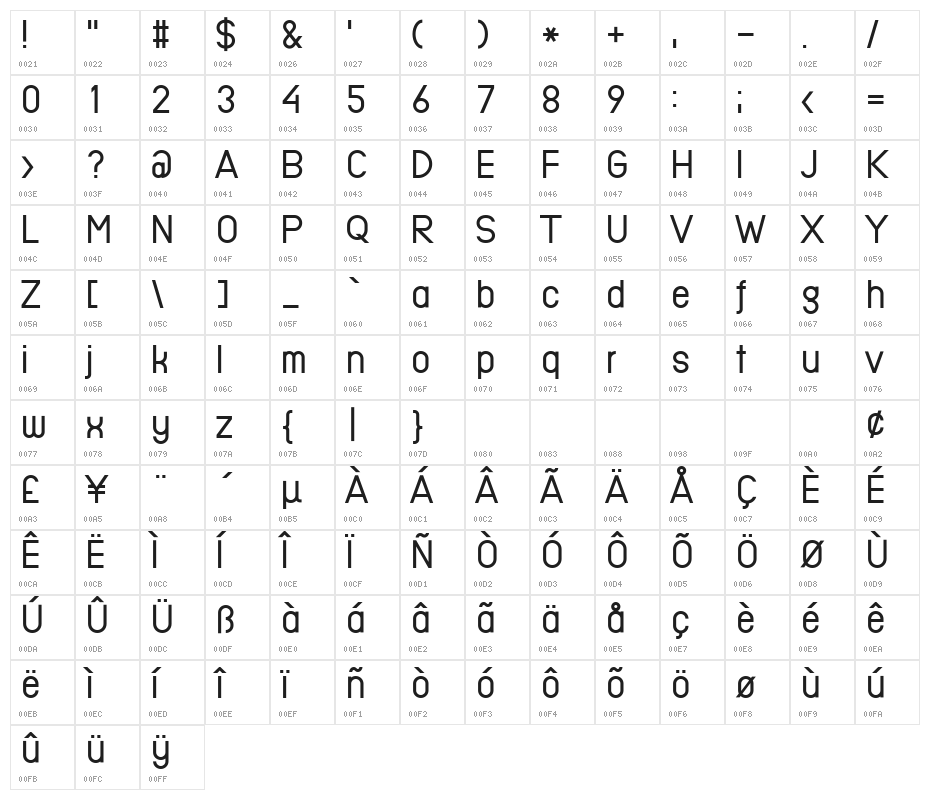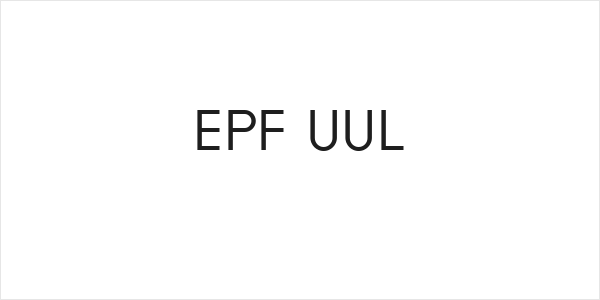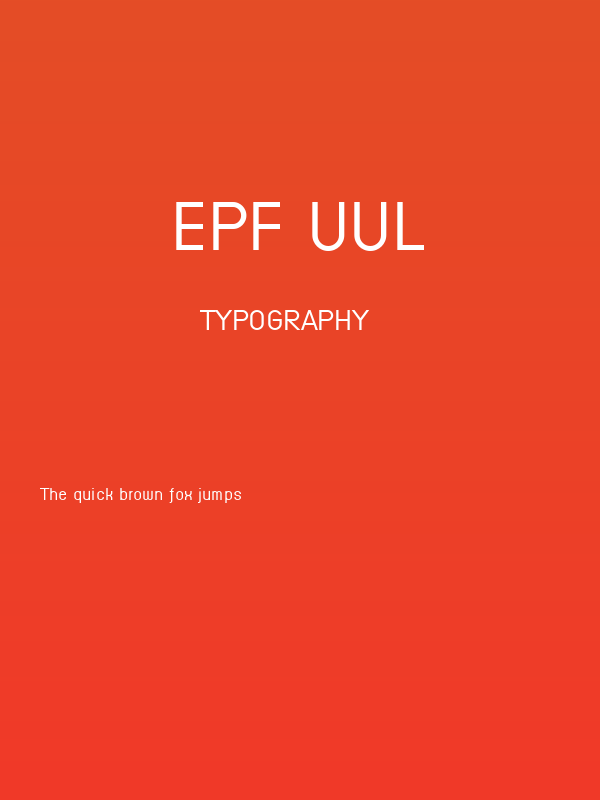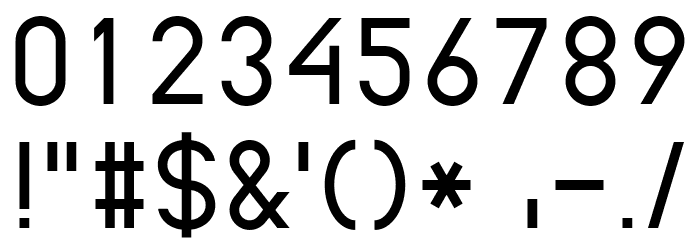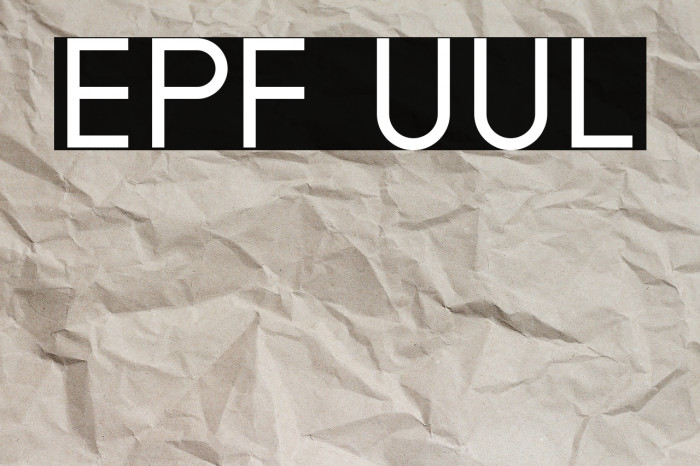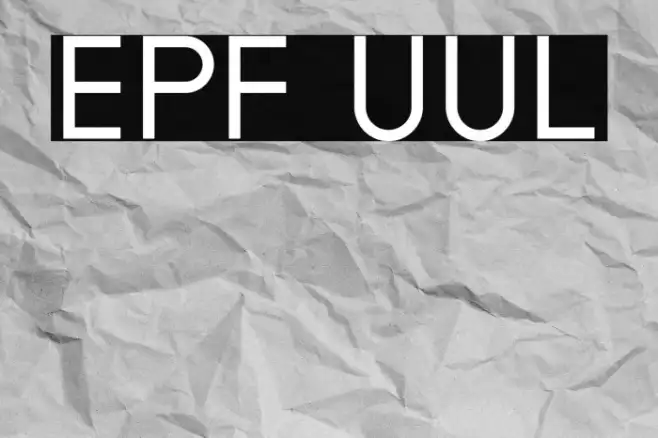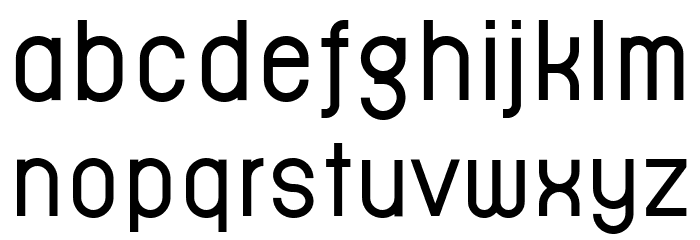
EPF UUL Font
EPF UUL Description
This font features a clean and modern sans-serif style with uniform stroke widths, giving it a sleek and contemporary appearance. The characters are well-proportioned, with a geometric influence that is evident in the symmetrical curves and straight lines. The uppercase letters are bold and assertive, while the lowercase letters maintain a friendly and approachable demeanor. The numerals are clear and easily distinguishable, making them ideal for both digital and print media. Special characters are designed with the same attention to detail, ensuring consistency across all glyphs.
| Proposed Projects | Ideal for branding, web design, user interfaces, and print media where clarity and modernity are essential. |